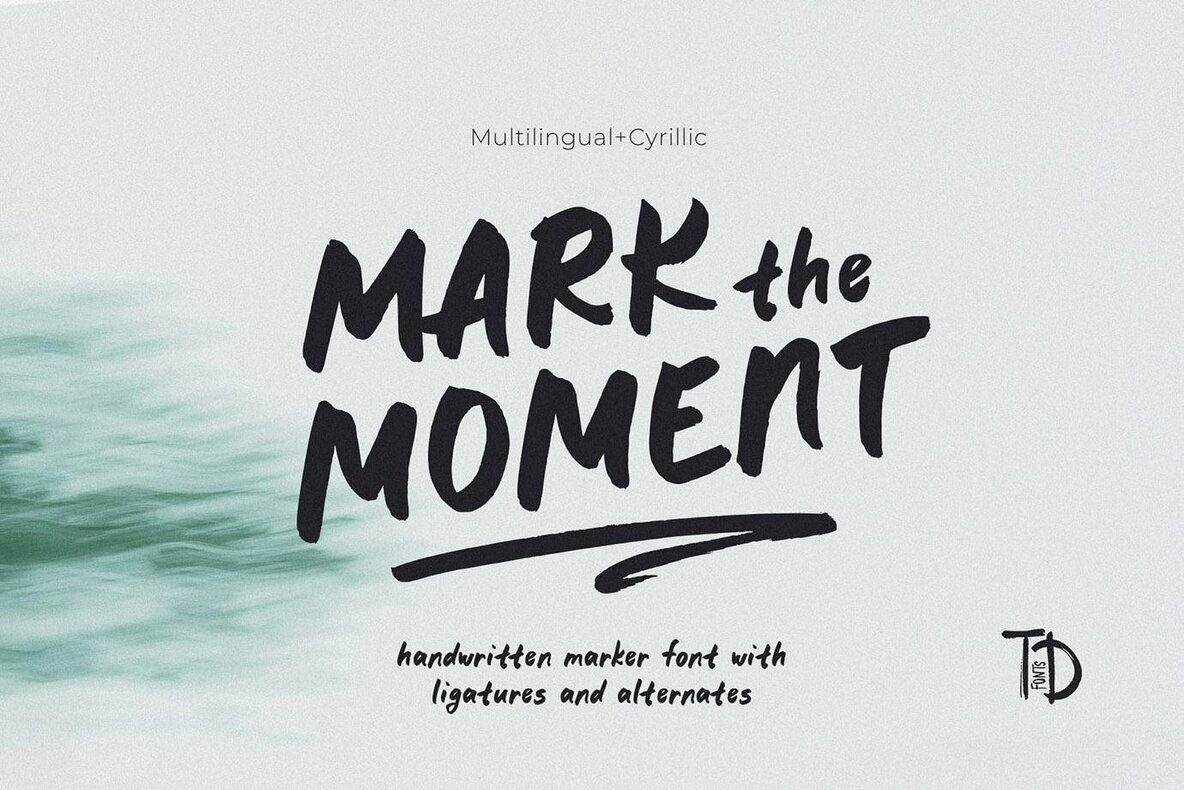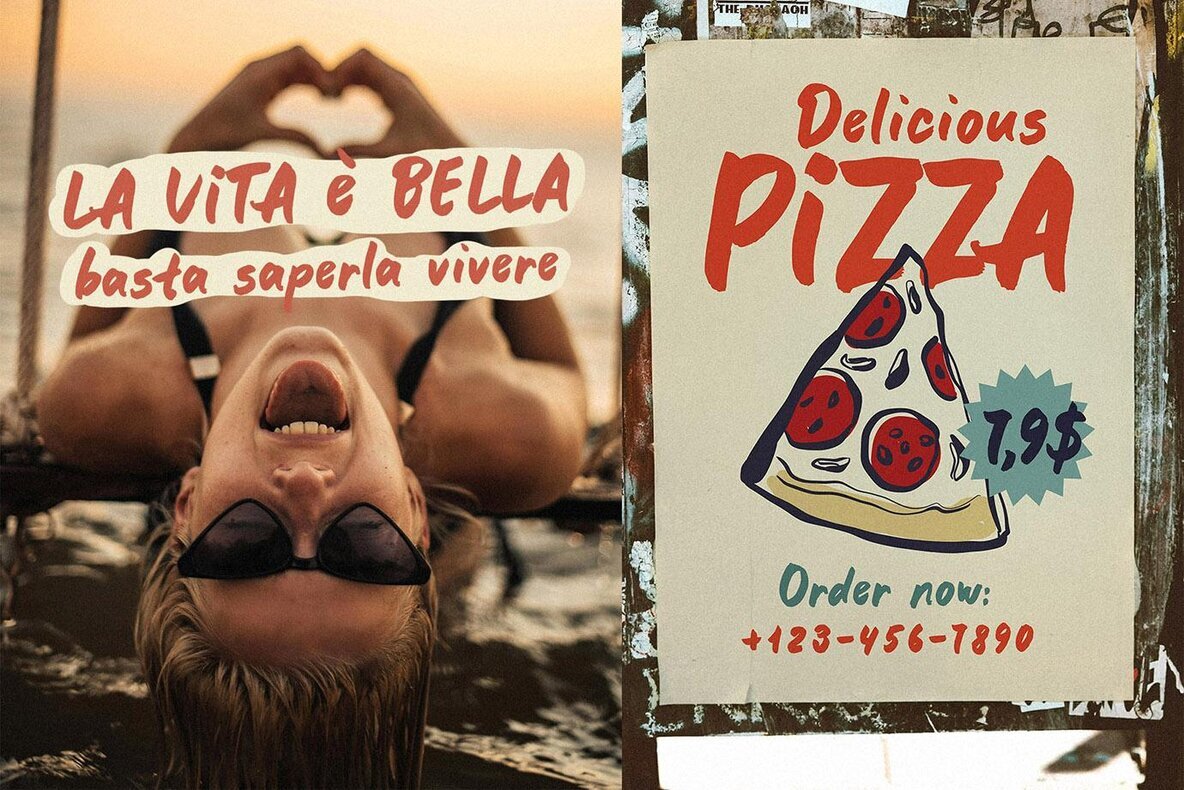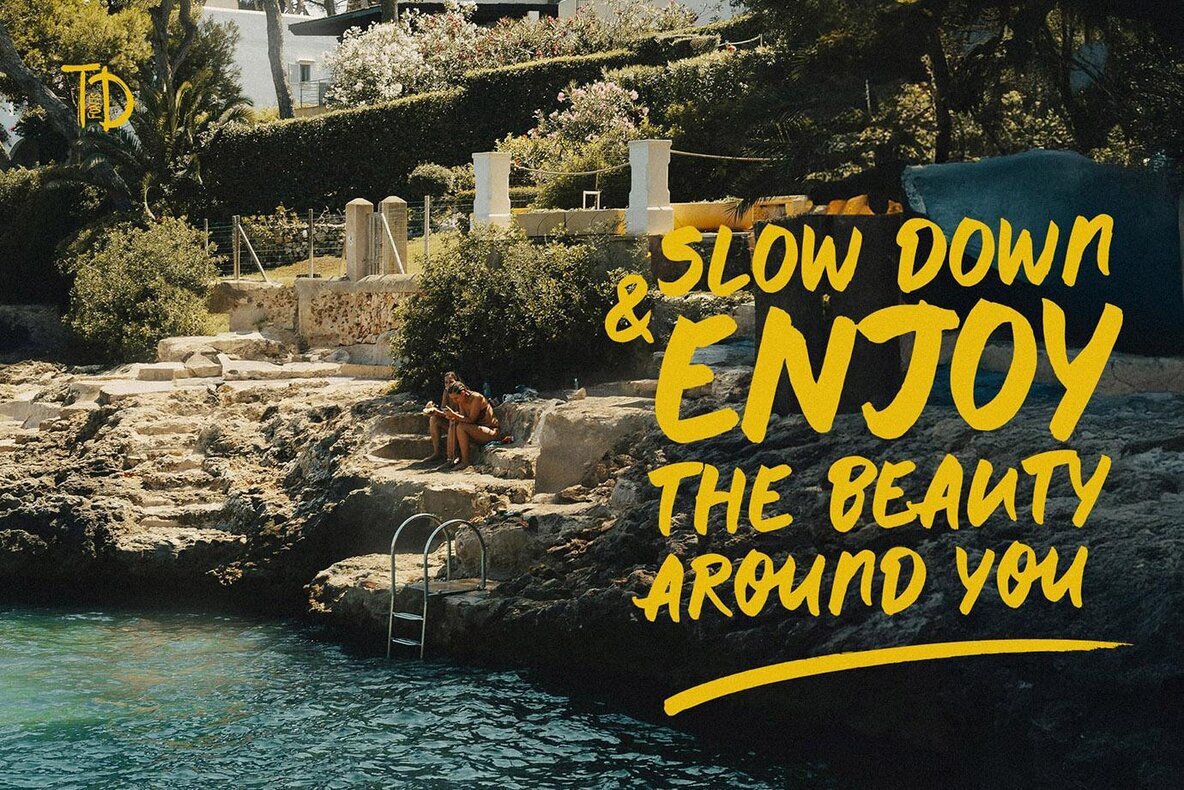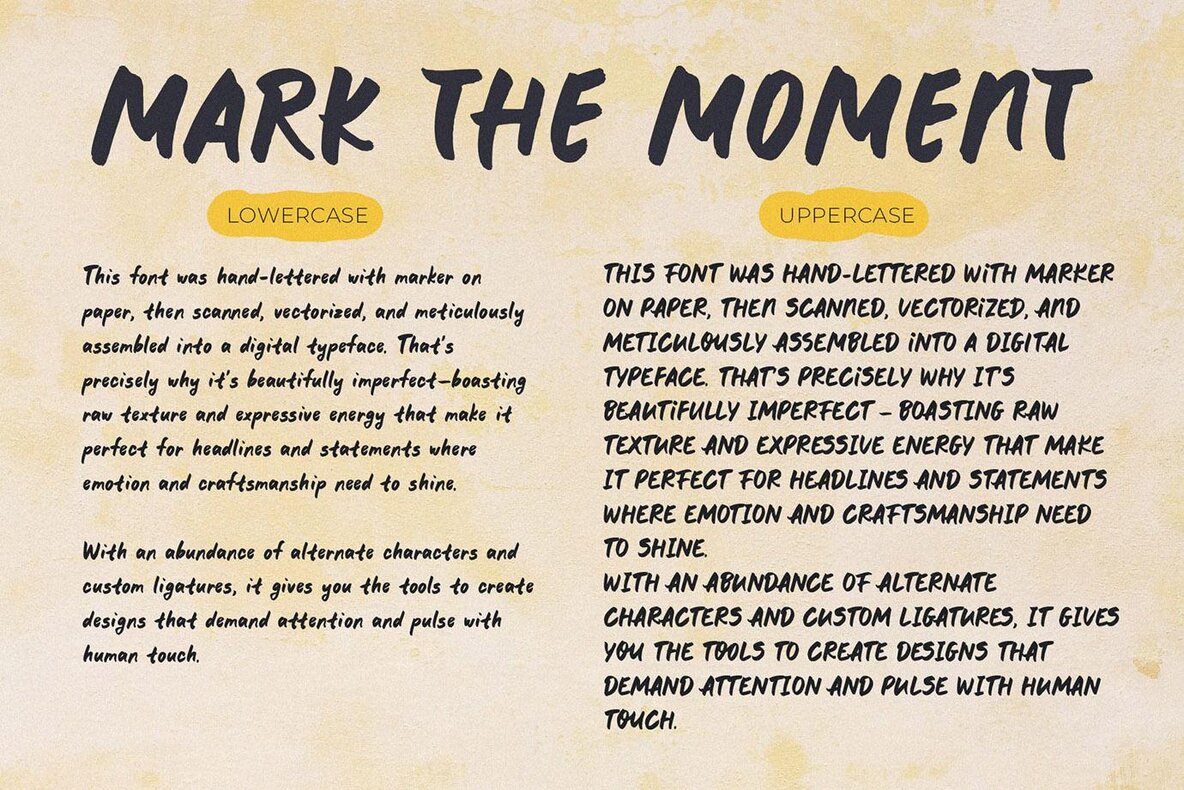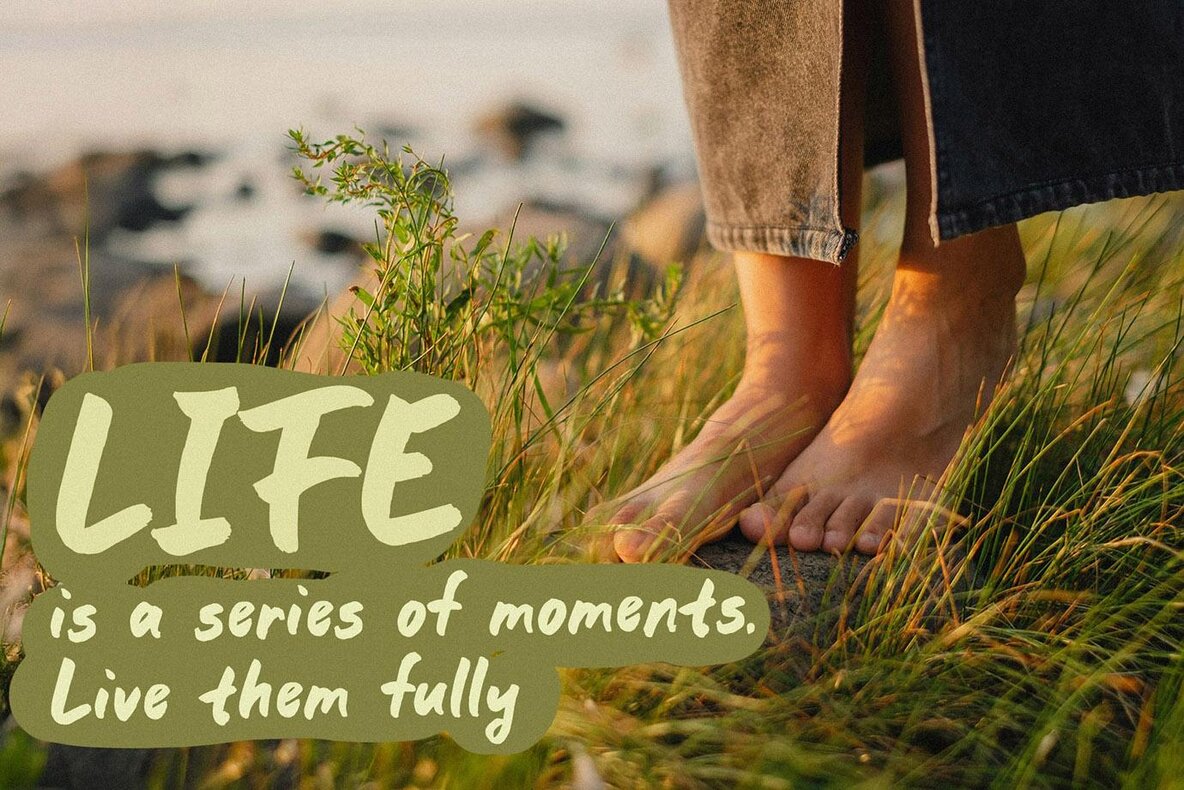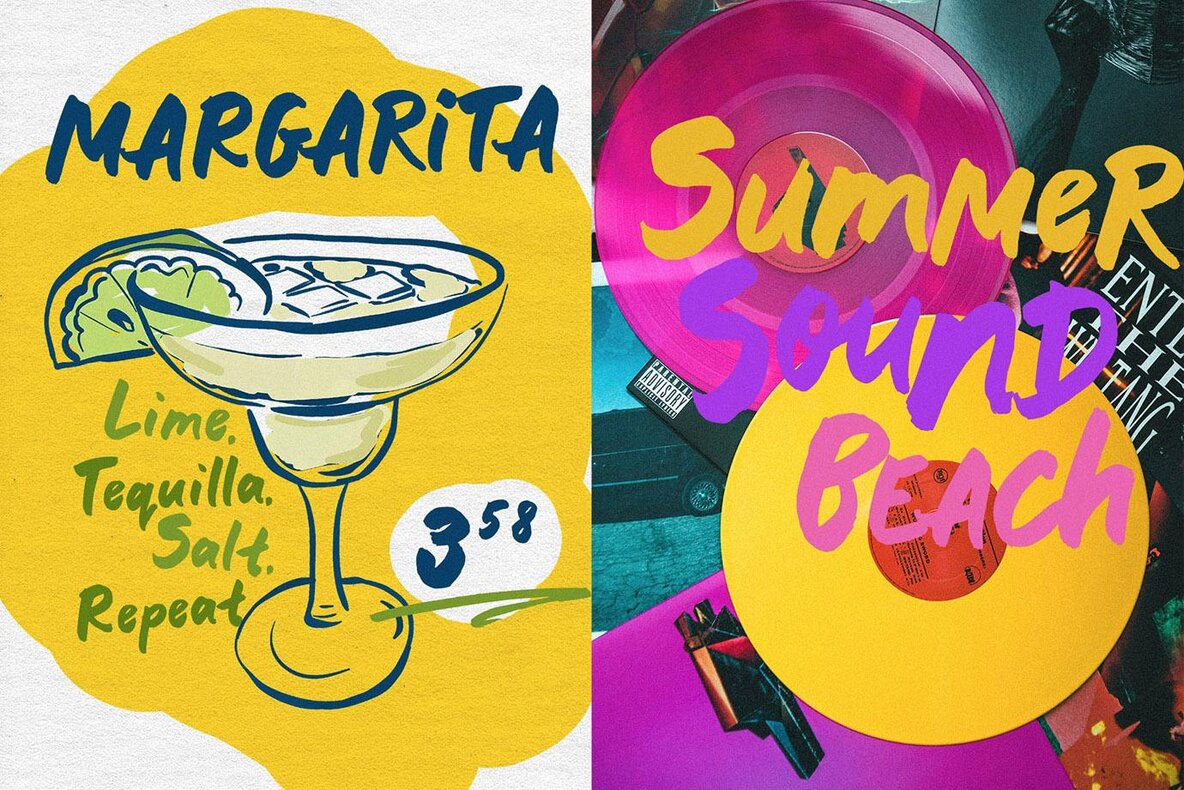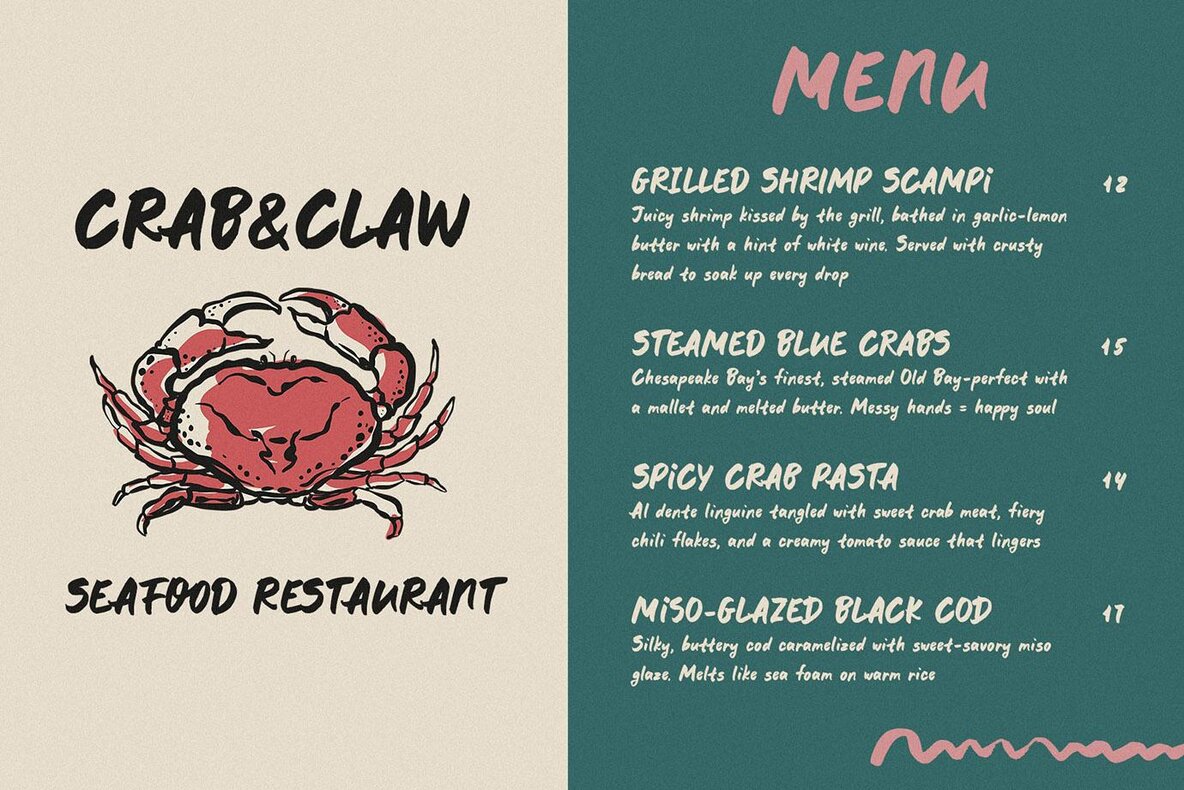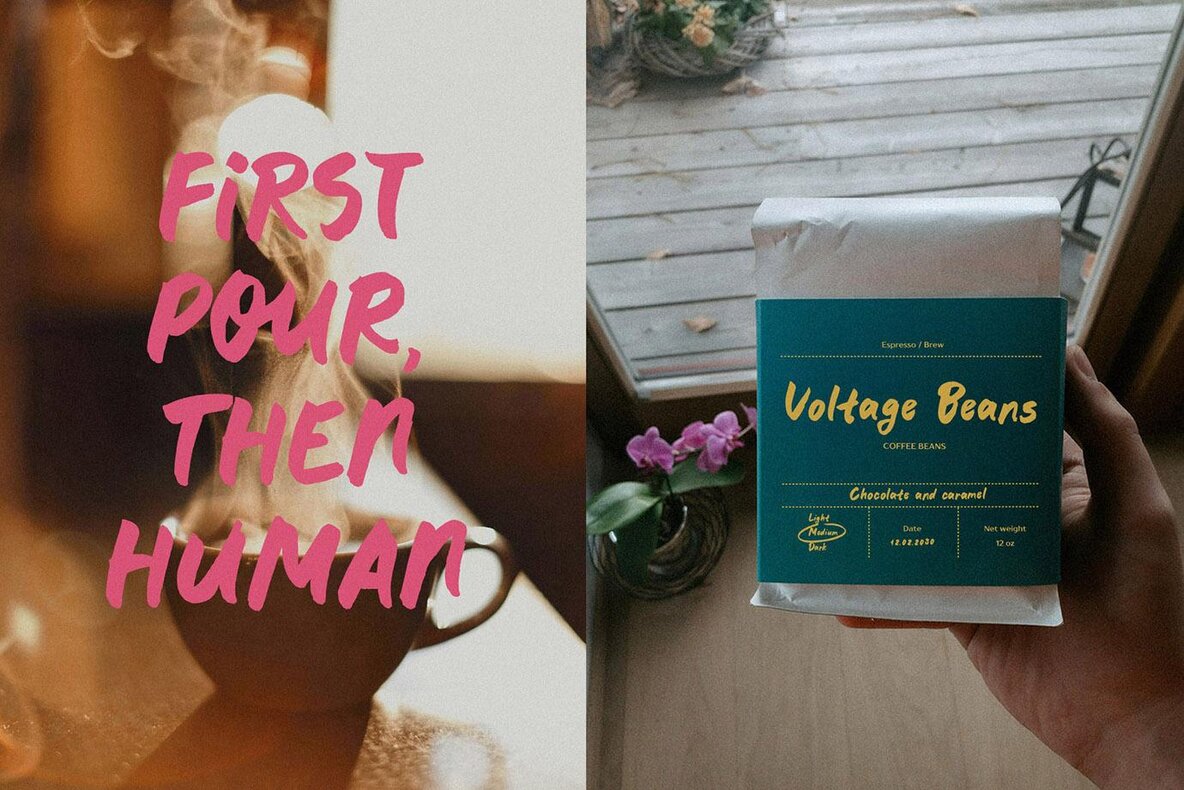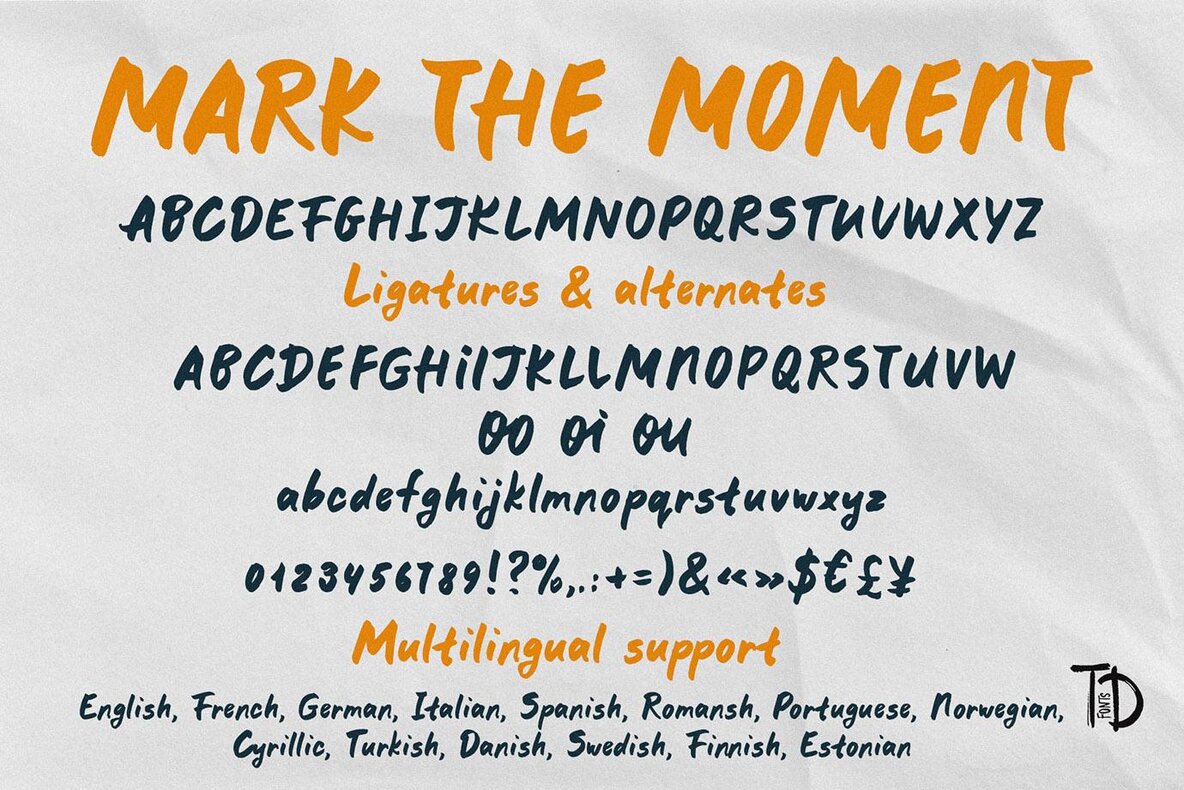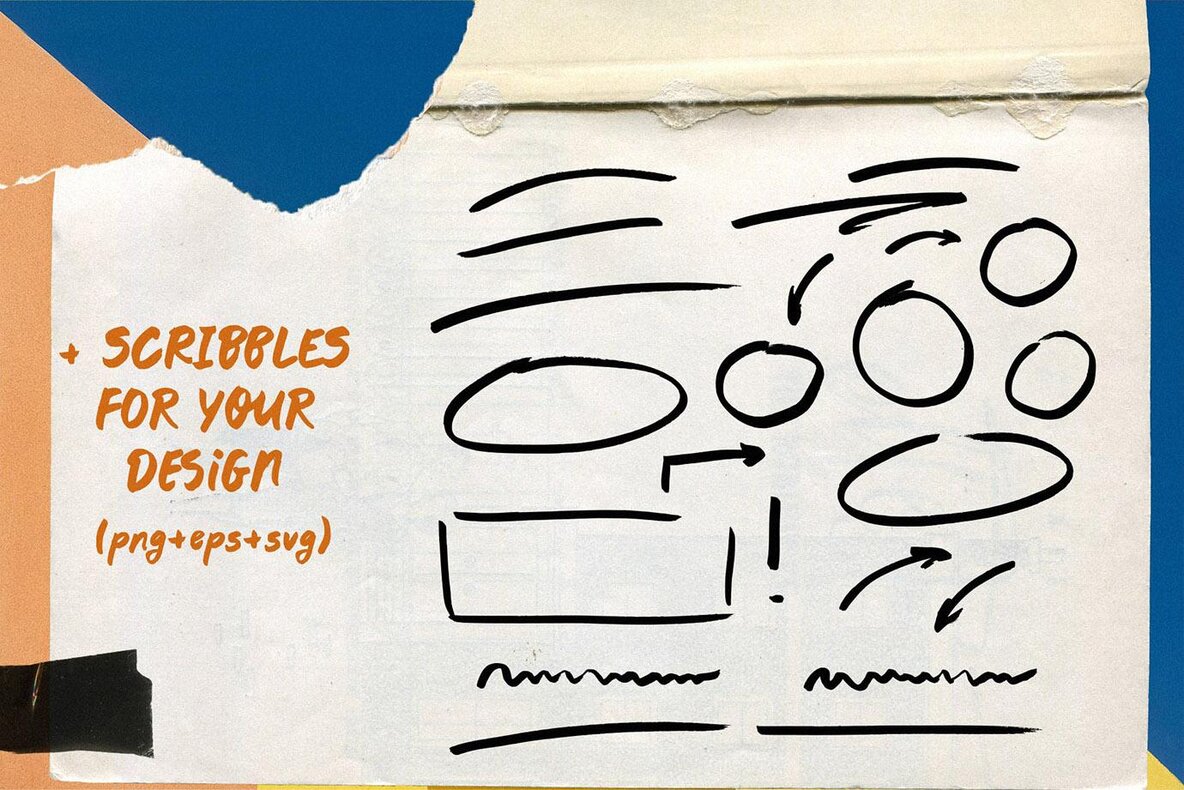
Mark the moment Font
Designed to convey palpable emotion and authenticity, Mark the Moment is a handwritten font meticulously created using a real marker on paper, later translated into a professional typeface. This careful process retains its charmingly imperfect texture and expressive strokes, making it an excellent option for headlines and designs that seek to evoke a strong emotional connection. With a rich array of alternates and ligatures, this font allows for vibrant, eye-catching compositions that exude a personal touch. Multilingual support extends its impact globally, whether crafting designs for modern brands, eco-friendly products, or attention-grabbing social media content. The unmistakable human element this font brings will enrich any project. Mark the Moment supports a broad range of languages, including English, French, German, Italian, Spanish, Portuguese, Danish, Norwegian, Swedish, Finnish, Estonian, Romansh, Turkish, and Cyrillic. Please note, text and mockups are not included.Mark the Moment: Handcrafted Authenticity
Perfect for Bold & Expressive Designs